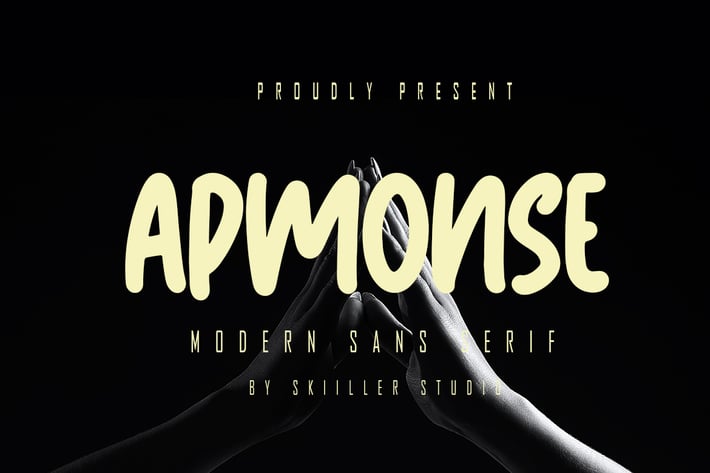
Apmonse - Modern Sans Serif Font
Apmonse is a unique and elegant handwritten font. It looks beautiful on a variety of designs requiring a personalized style, This font is PUA encoded which means you can access all of the glyphs